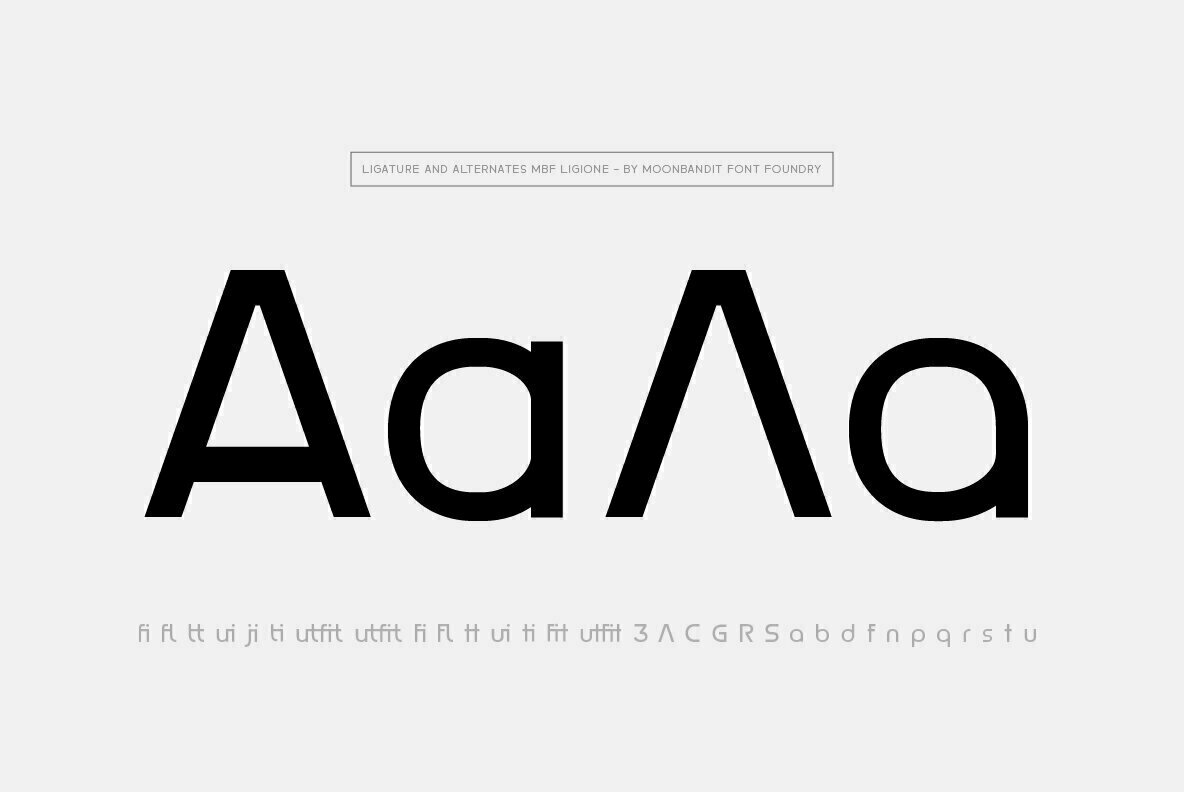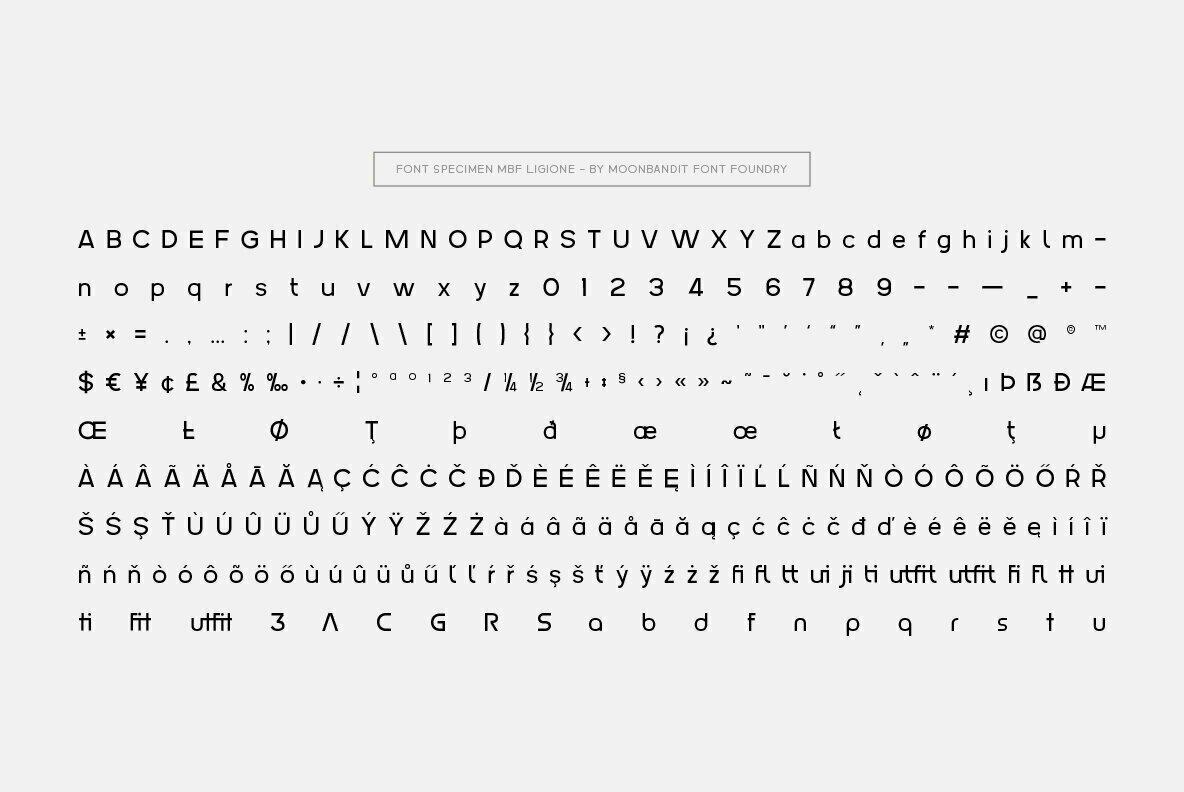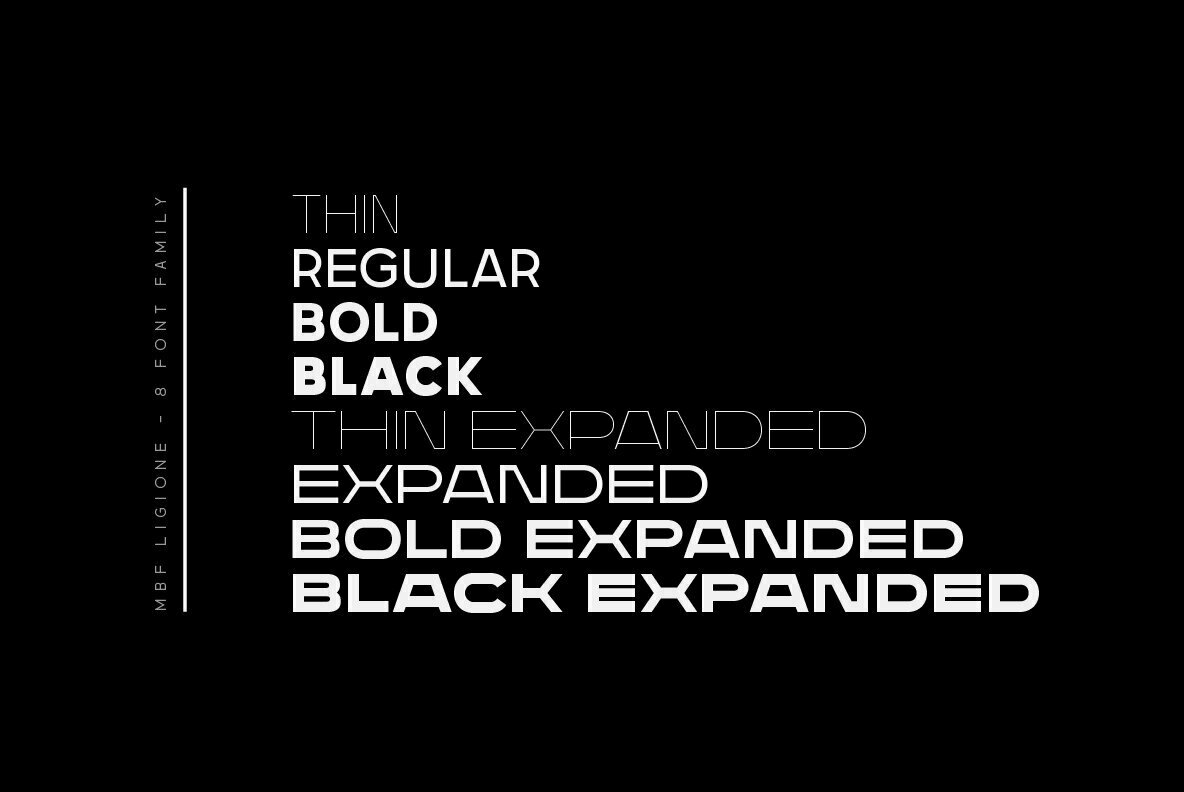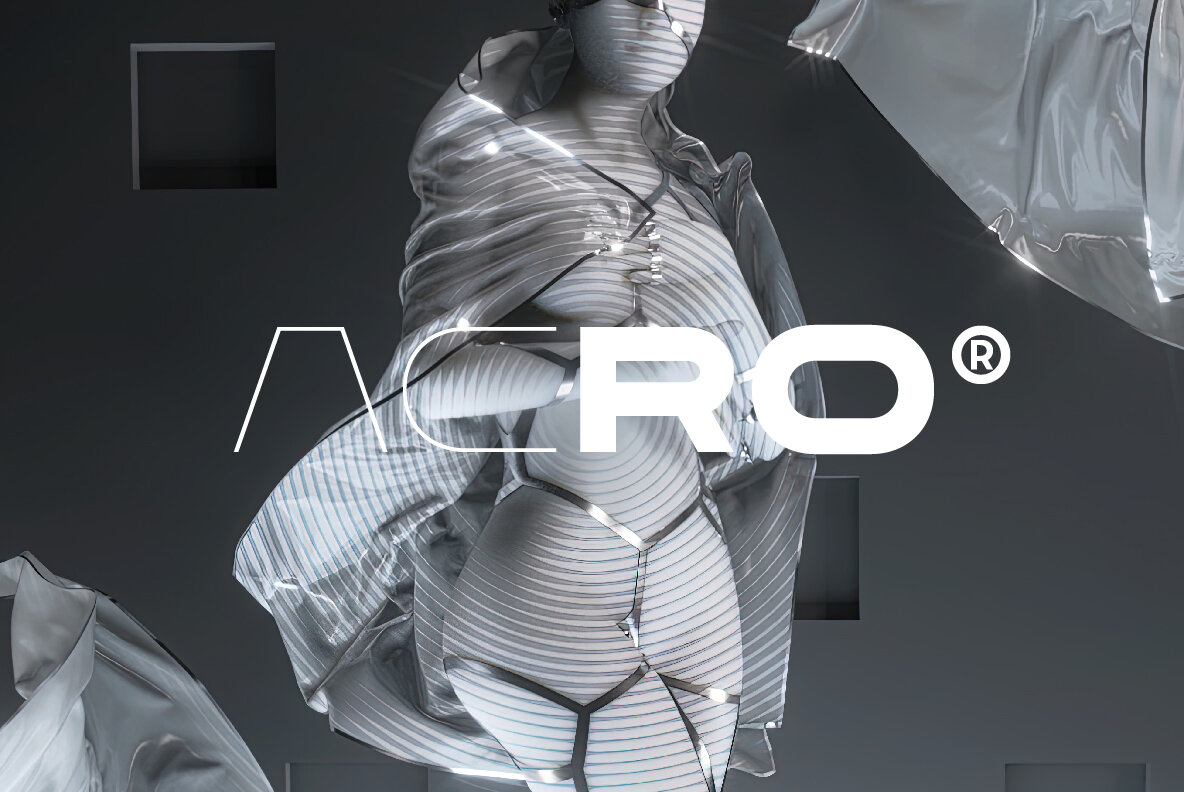
MBF Ligione Font
The MBF Ligione is a typeface that embodies modernity and versatility in a single family. Its geometric modular assembly is crafted meticulously with both elegance and functionality, making it an ideal choice for a wide scope of design projects. With its combination of uppercase and lowercase letters and variations across four weights and four widths, MBF Ligione offers a total of eight diverse styles. This diversity provides designers with the flexibility to use the font in expansive ways. Crafted for both cosmetic appeal and readability, this sans serif typeface is particularly fitting for large display settings, titles, body text, and even logos. The regular and expanded styles can be mingled to produce a distinctive flair that will enrich any design. Whether you aim for a contemporary edge or a more classic touch, MBF Ligione's structured aesthetic adapts effortlessly.MBF Ligione: A Geometric Sans Serif with Versatility